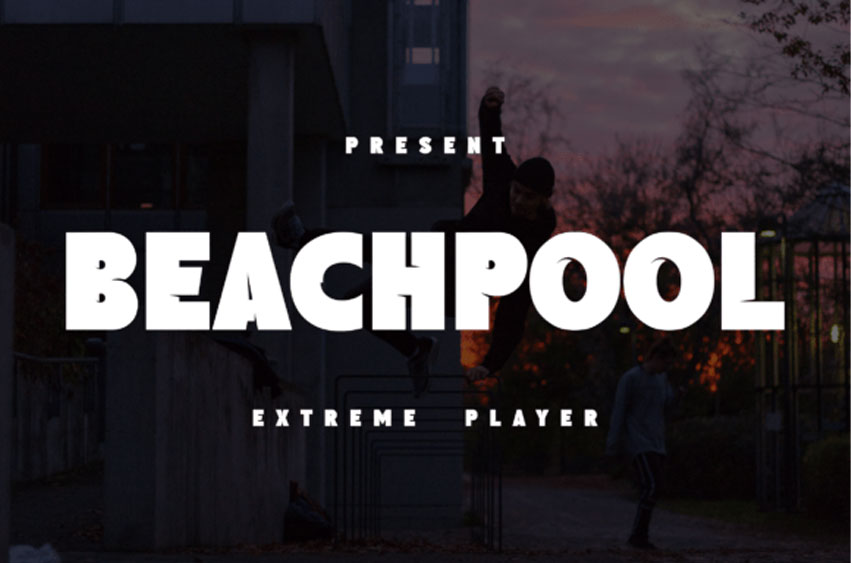
Beachpool Font
Beachpool Font is a robust and virile typeface specifically tailored for powerful branding. This font truly excels in athletic contexts such as gym emblems, adding a bold flourish to men’s product branding, empowering extreme sports graphics, and capturing the energy of parkour labels. With its strong and dynamic character, Beachpool exemplifies rugged masculinity.